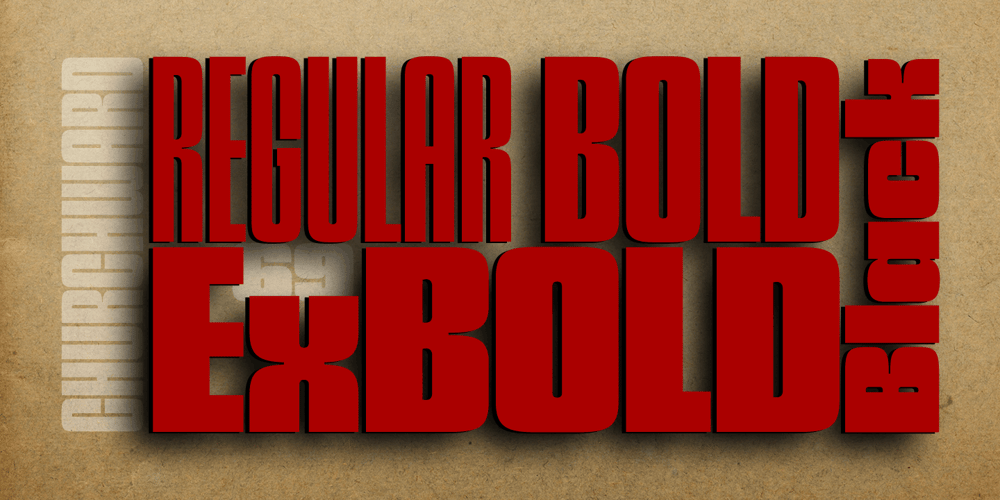
Churchward 69 Font Family was designed by Joseph Churchward and published by BluHead Studio. Churchward 69 contains 10 styles and family package options. Churchward 69 is a ten weight typeface family originally designed during the late 1960’s by the late type designer Joseph Churchward. From the extremely condensed Regular weight to the outlandishly heavy Ultra Black, this square sans serif makes an audacious statement. Even the Italics are extreme at their 17 degree angle! Churchward 69 includes 5 weights, Regular, Bold, Extra Bold, Black, and the gorgeous Ultra Black, and their italics. Joseph sure knew how to draw heavy weights! All members of the Churchward 69 family have OpenType features, including proportional and tabular figures, unlimited fractions, superior and inferior figures, and ordinals. Each font also has an extensive character set to support many western European languages.